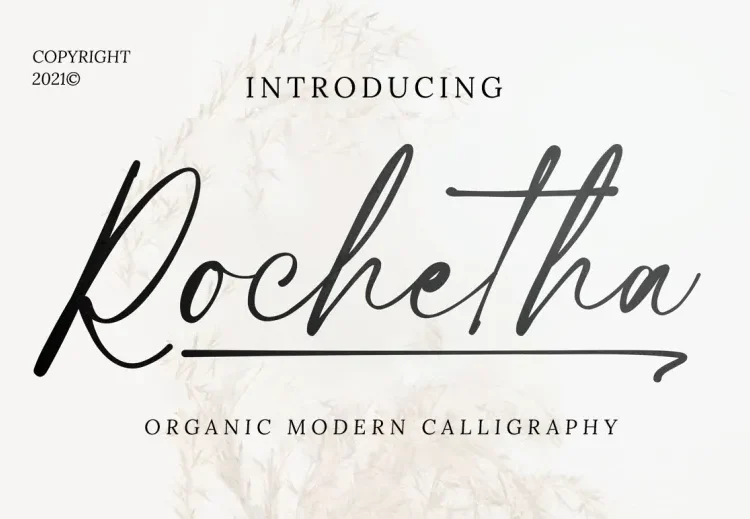
Rochetha Font
Rochetha is an exquisite script calligraphy typeface designed to bring a touch of elegance and artistry to your projects. With its refined strokes and graceful curves, Rochetha transforms ordinary text into stunning works of art, making it an ideal choice for a variety of creative uses.
• Elegant Design: Rochetha’s elegant script design is characterized by its fluid lines and graceful letterforms. This sophisticated aesthetic is perfect for creating visually striking content that stands out in both digital and print formats.
• Versatile Application: Whether you’re working on Instagram posts, invitations, branding materials, or any other design project, Rochetha enhances your work with its artistic flair. Its versatility allows it to adapt beautifully to a wide range of creative contexts.
• Artistic Touch: The font’s intricate calligraphy adds a personal and artistic touch to your designs. Rochetha excels at turning simple ideas into beautiful expressions of creativity, making it a valuable tool for any designer looking to elevate their work.
• Professional Quality: Despite its artistic nature, Rochetha maintains high-quality design standards. Its attention to detail ensures that your text will look polished and professional, enhancing the overall impact of your project.